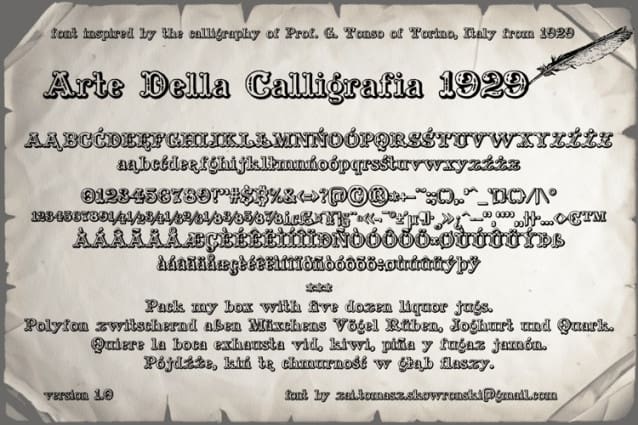
Arte Della Calligrafia 1929 Font
Arte Della Calligrafia 1929 Font, This font is perfect for stickers, retro projects, craft projects, shirts, svg designs, procreate designs, branding, blogs, logos, invitations and more!